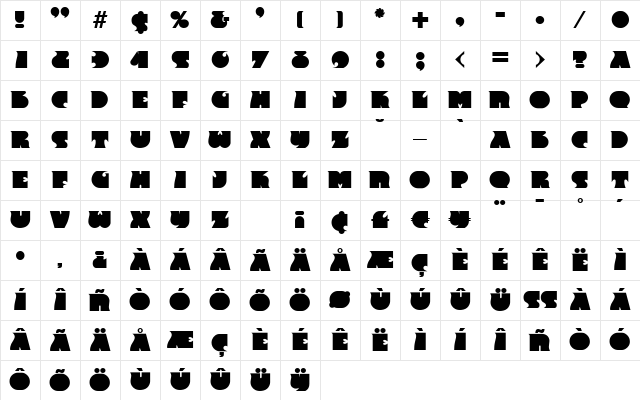
F820-Deco Bold
F820-Deco Family
Design Context for F820-Deco
F820-Deco is a composed and adaptable typeface that performs quietly and consistently across a wide range of design contexts. Its bold stroke weight gives it real presence on the page.